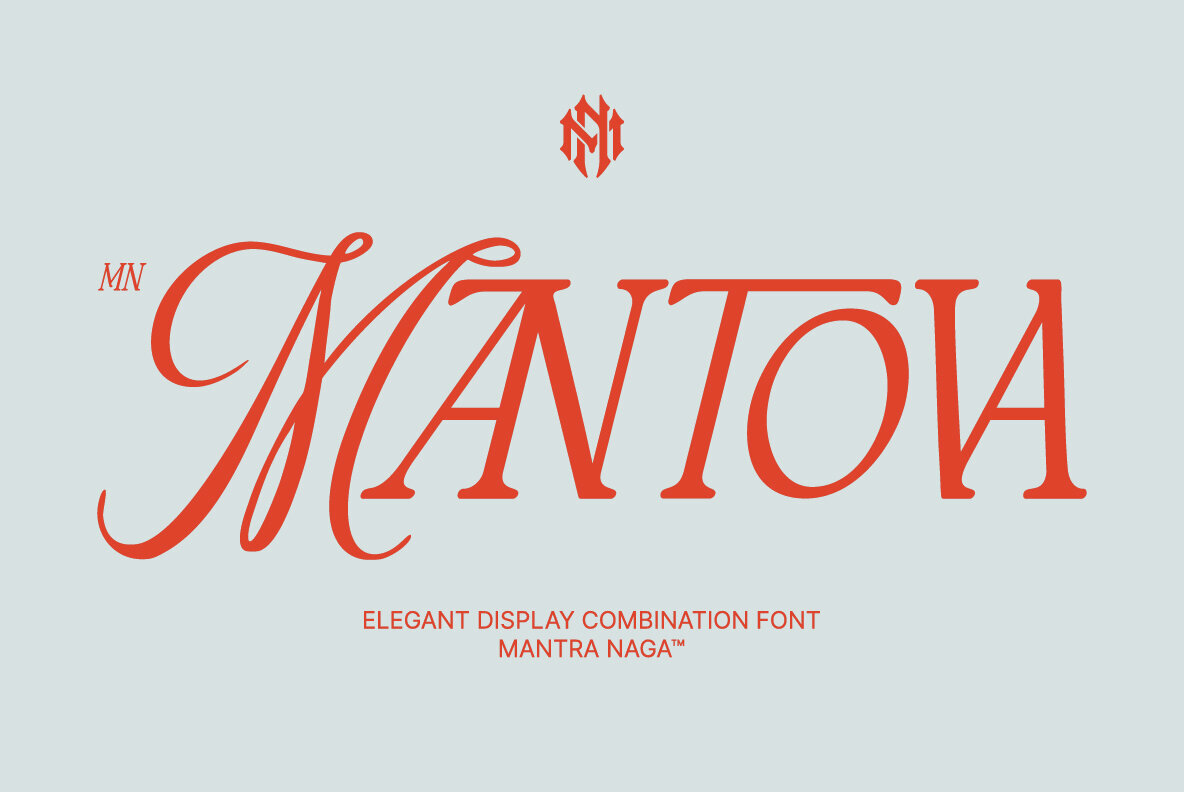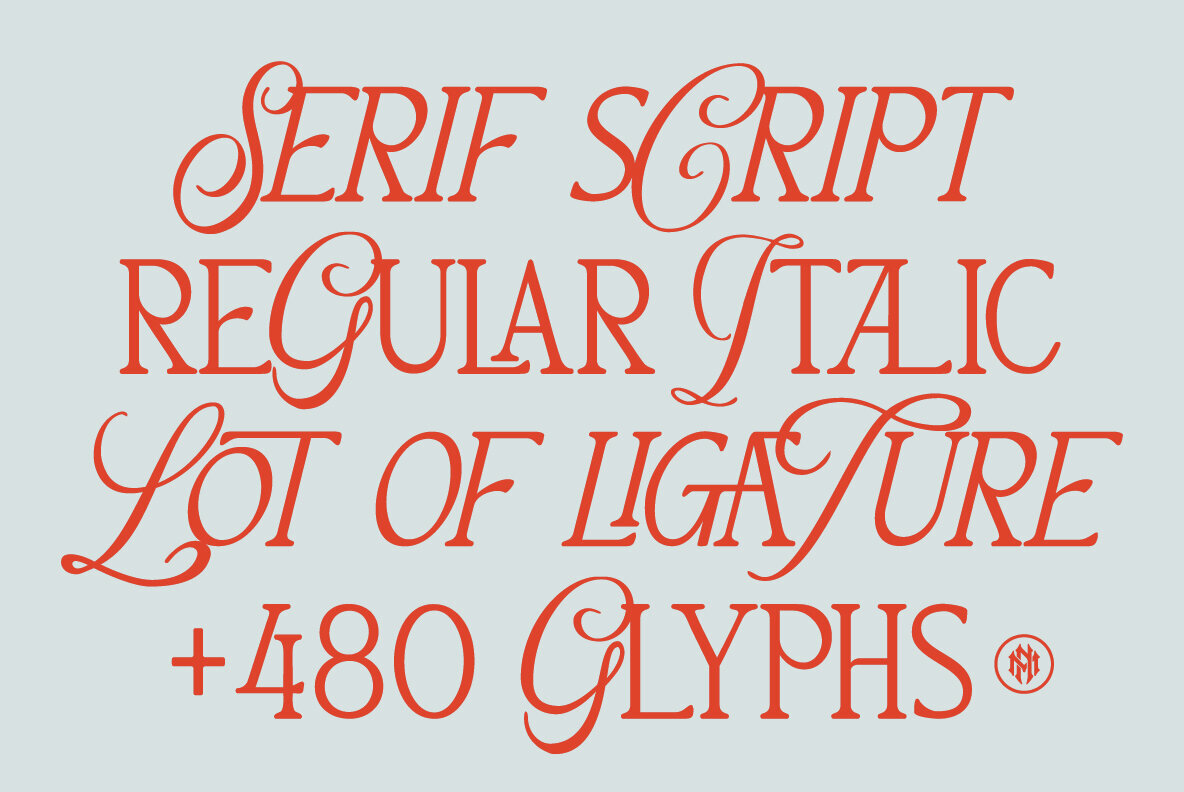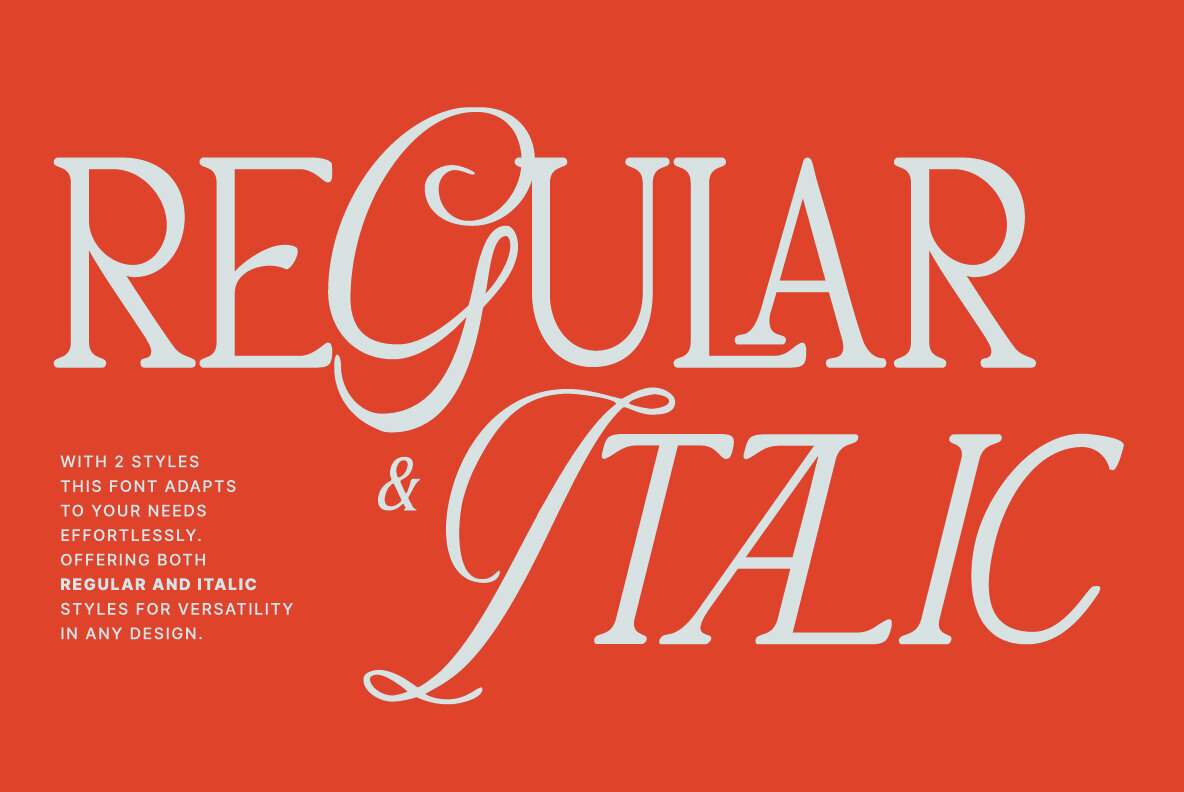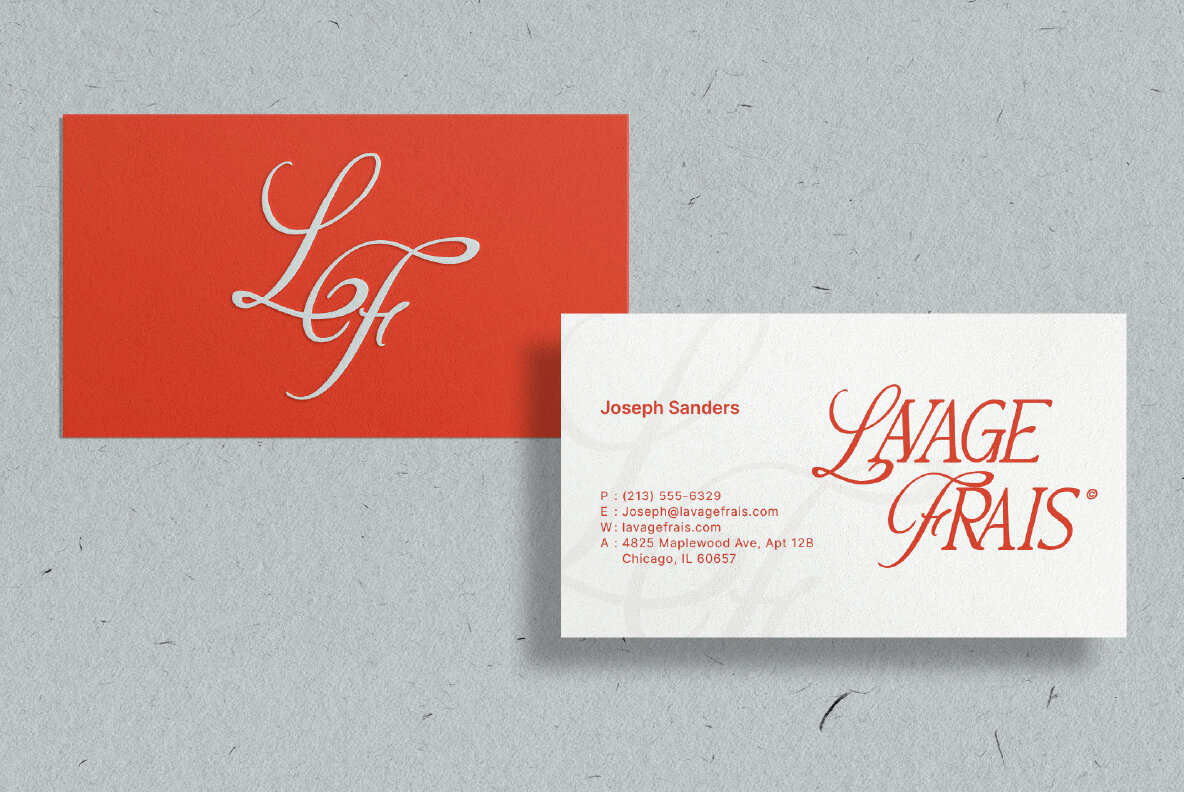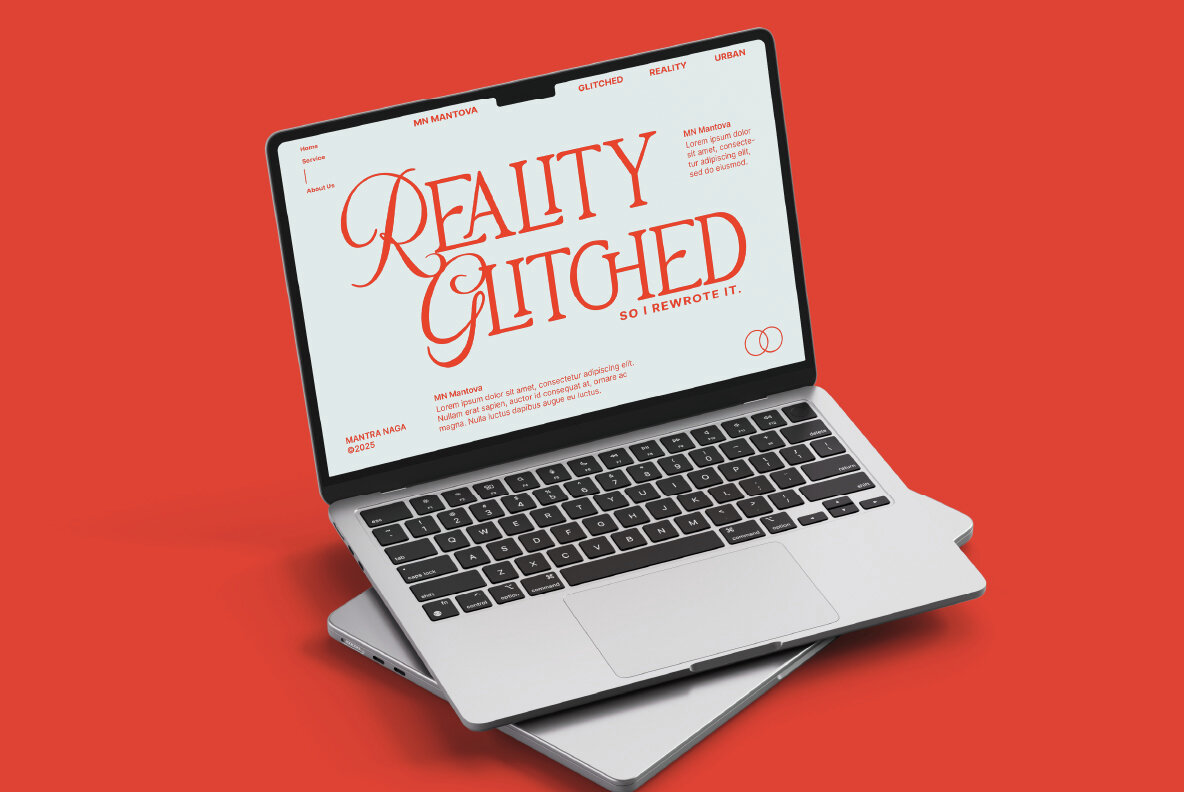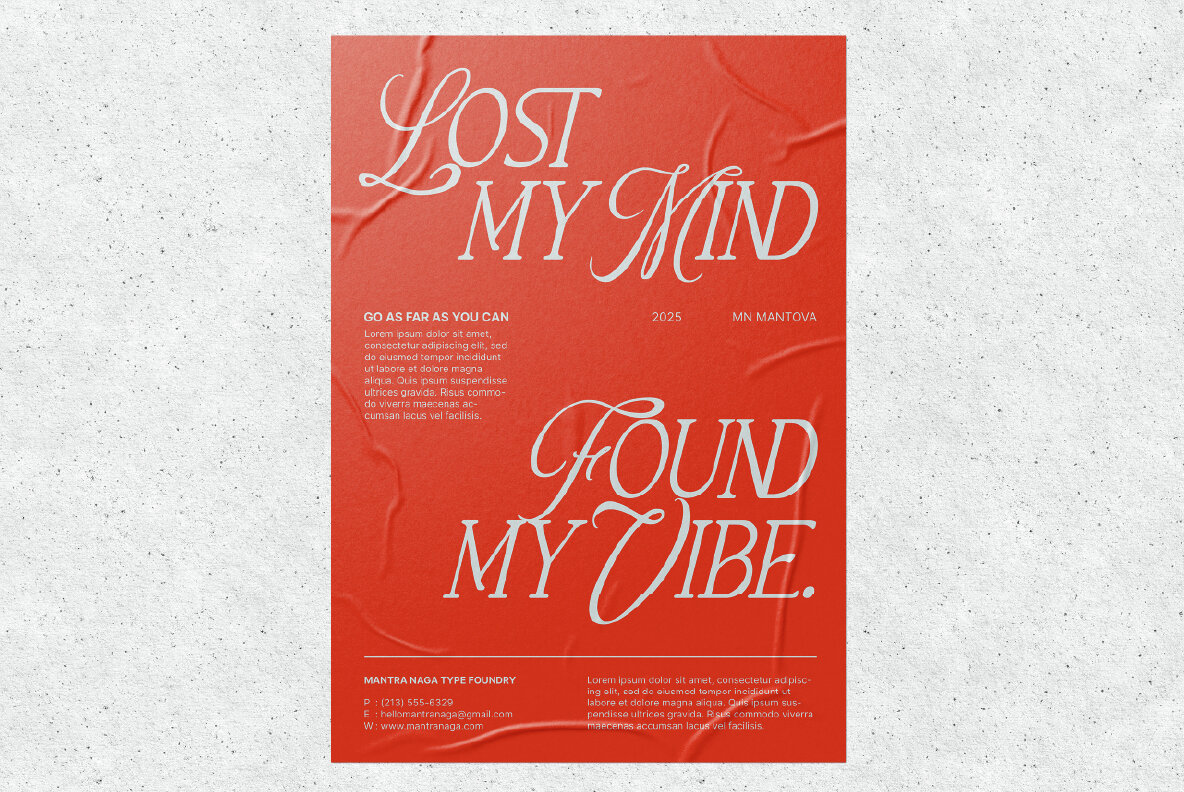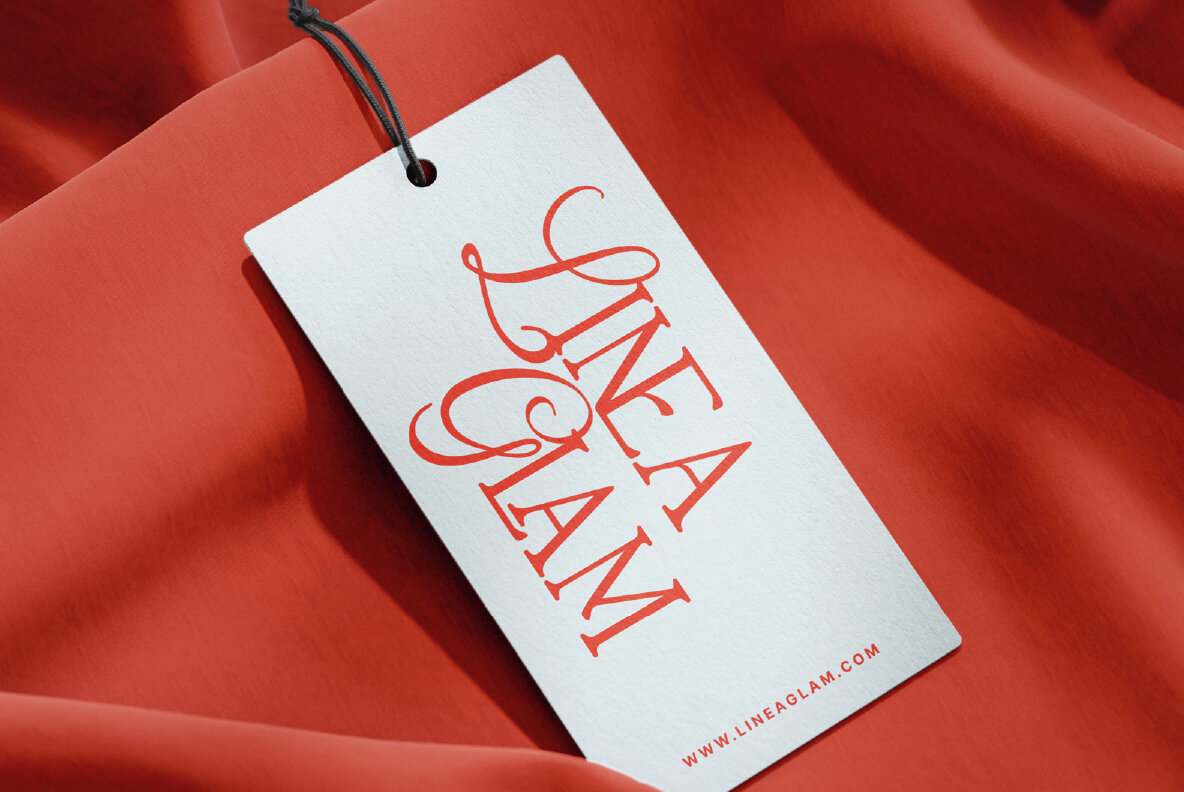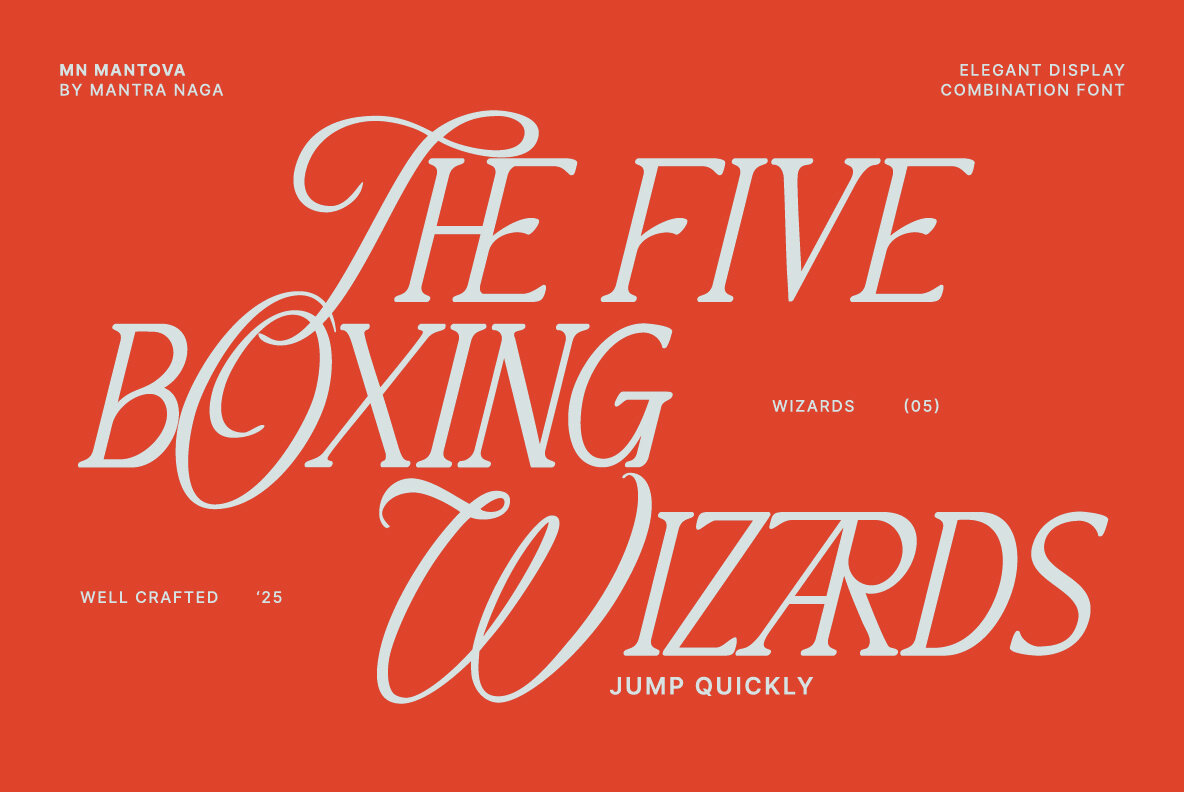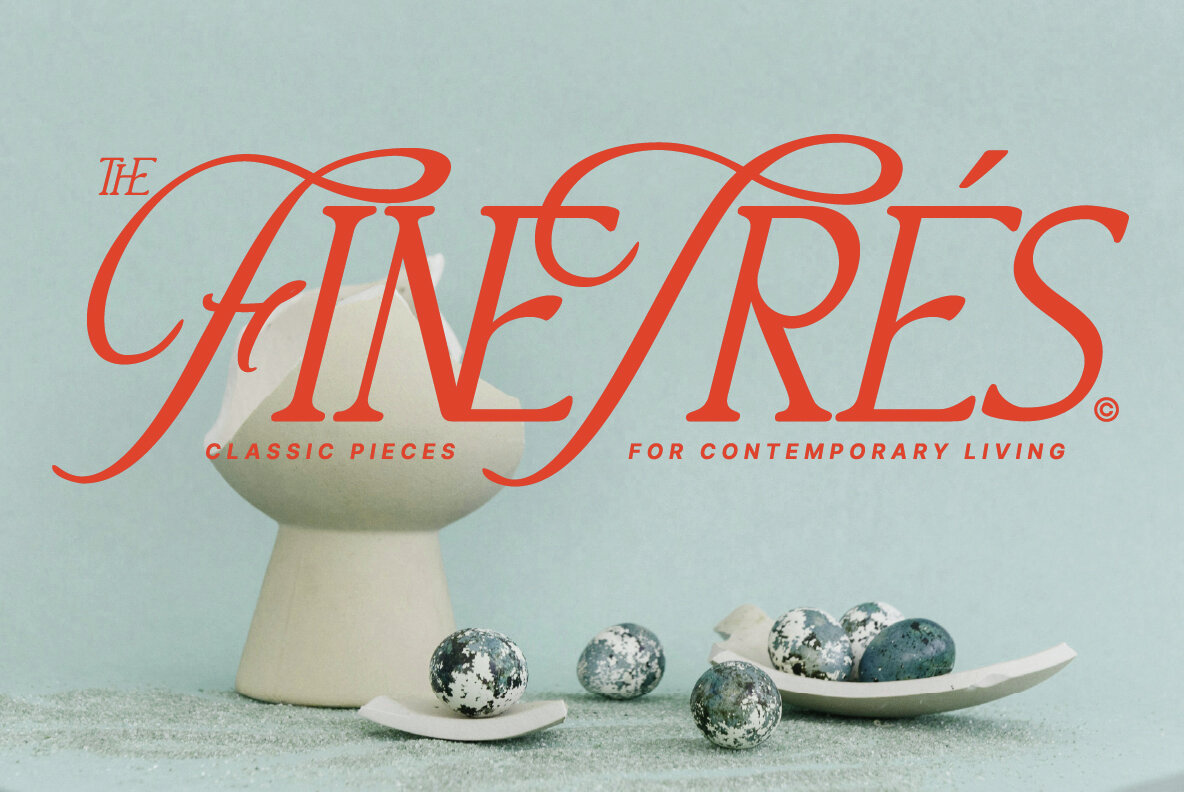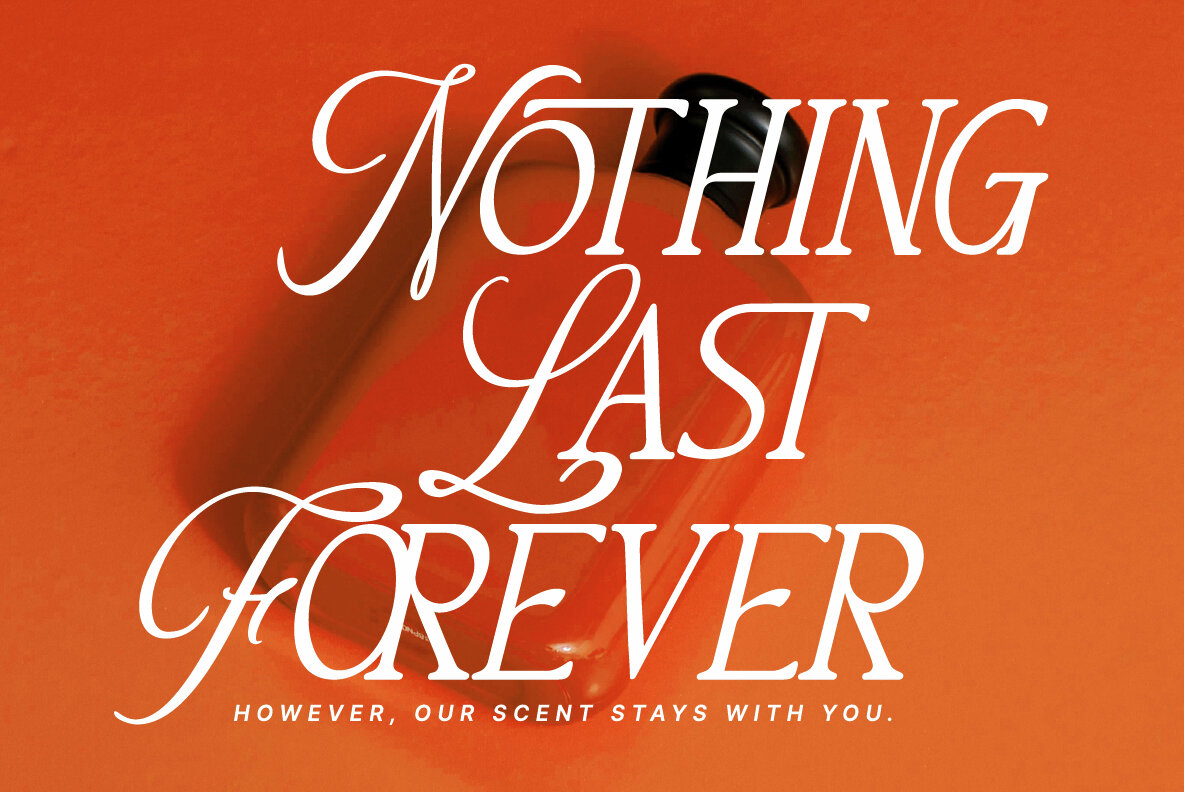
MN Mantova Font
MN Mantova: Elegant Display Font for Creative Projects MN Mantova is a sophisticated display font that seamlessly blends script and serif styles, infusing classic charm with contemporary flair. Crafted for creative professionals, this font is available in both Regular and Italic styles, offering over 100 ligatures and alternates. This abundant selection empowers designers to explore a wide range of creative possibilities. The extensive character set, featuring over 480 glyphs, supports 94 languages, making MN Mantova ideal for global branding, editorial projects, elegant invitations, and luxury packaging. Embrace the creative freedom offered by this font and elevate your design projects with its elegant versatility.Features